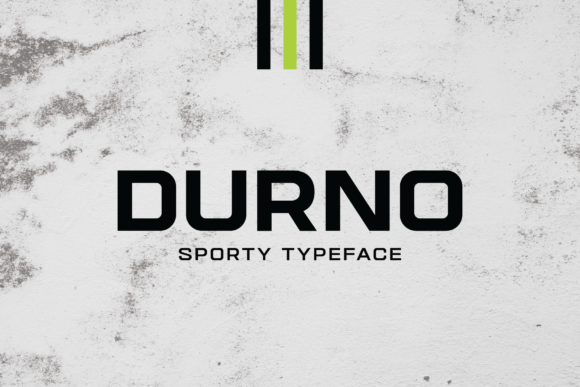
Durno Font: The Modern Futuristic Font for Your Creative Projects
In the world of typography, fonts play a crucial role in conveying the tone and personality of a brand or design. With the ever-evolving design landscape, it’s essential to stay ahead of the curve with modern and futuristic fonts that can elevate your creative projects. One such font that has gained significant attention in recent times is the Durno Font. In this article, we’ll delve into the features, benefits, and uses of the Durno Font, and explore why it’s an excellent choice for your design projects.
What is Durno Font?
Durno Font is a modern, futuristic font that boasts wide and extended glyphs, making it a standout in the world of typography. This extended sport font is designed to make a statement, with its sleek and futuristic design, perfect for projects that require a bold and eye-catching approach. The font’s unique design elements make it an excellent choice for a wide range of applications, from logo designs to social media posts, banners, posters, headers, and more.
Key Features of Durno Font
- Wide and Extended Glyphs: The Durno Font features wide and extended glyphs that give it a unique and futuristic look.
- Modern and Futuristic Design: The font’s modern and futuristic design makes it perfect for projects that require a bold and eye-catching approach.
- Highly Versatile: The Durno Font is highly versatile and can be used for a wide range of applications, from logo designs to social media posts, banners, posters, headers, and more.
- Easily Readable: Despite its futuristic design, the Durno Font is easily readable, making it perfect for projects that require a font that’s both stylish and legible.
Benefits of Using Durno Font
The Durno Font offers several benefits that make it an excellent choice for your design projects. Some of the key benefits include:
- Unique and Memorable: The Durno Font’s unique design elements make it an excellent choice for projects that require a font that’s both stylish and memorable.
- Enhances Brand Identity: The font’s modern and futuristic design can help enhance your brand’s identity and make it stand out in a crowded market.
- Improves Readability: The Durno Font’s easily readable design makes it perfect for projects that require a font that’s both stylish and legible.
- Highly Customizable: The font is highly customizable, allowing you to adjust its size, color, and style to suit your design needs.
Use Cases for Durno Font
The Durno Font is highly versatile and can be used for a wide range of applications, including:
- Logo Designs: The font’s unique design elements make it an excellent choice for logo designs that require a bold and eye-catching approach.
- Social Media Posts: The Durno Font is perfect for social media posts that require a font that’s both stylish and easily readable.
- Banners and Posters: The font’s wide and extended glyphs make it an excellent choice for banners and posters that require a bold and eye-catching approach.
- Headers and Titles: The Durno Font is perfect for headers and titles that require a font that’s both stylish and easily readable.
Tips for Using Durno Font
To get the most out of the Durno Font, here are some tips to keep in mind:
- Use it Sparingly: While the Durno Font is highly versatile, it’s best to use it sparingly to avoid overwhelming your design.
- Experiment with Colors: The font’s modern and futuristic design looks great with bold and bright colors, so don’t be afraid to experiment.
- Pair it with Other Fonts: The Durno Font can be paired with other fonts to create a unique and memorable design.
- Adjust its Size: The font’s size can be adjusted to suit your design needs, so don’t be afraid to experiment with different sizes.
| Author | ebaddesigns |
In conclusion, the Durno Font is a modern, futuristic font that’s perfect for creative projects that require a bold and eye-catching approach. Its unique design elements, highly versatile nature, and easily readable design make it an excellent choice for a wide range of applications. By following the tips outlined in this article, you can get the most out of the Durno Font and create stunning designs that elevate your brand’s identity.
- What is the Durno Font? The Durno Font is a modern, futuristic font that features wide and extended glyphs.
- What is the Durno Font used for? The Durno Font can be used for a wide range of applications, including logo designs, social media posts, banners, posters, headers, and more.
- Is the Durno Font easily readable? Yes, the Durno Font is easily readable, making it perfect for projects that require a font that’s both stylish and legible.